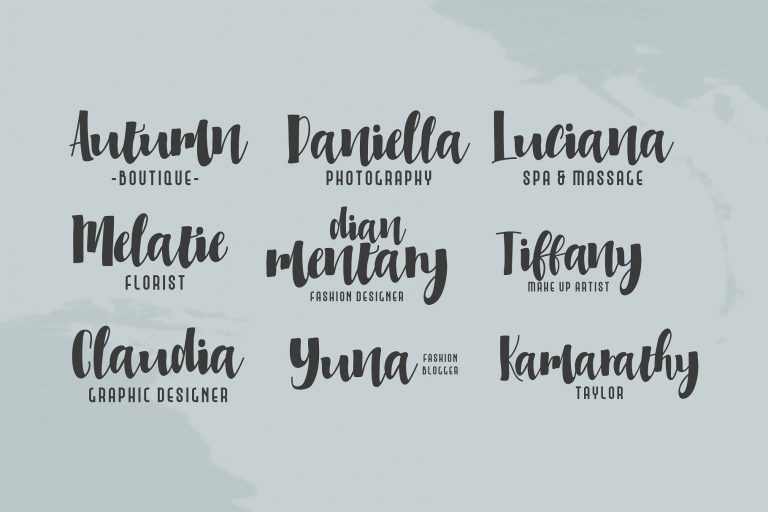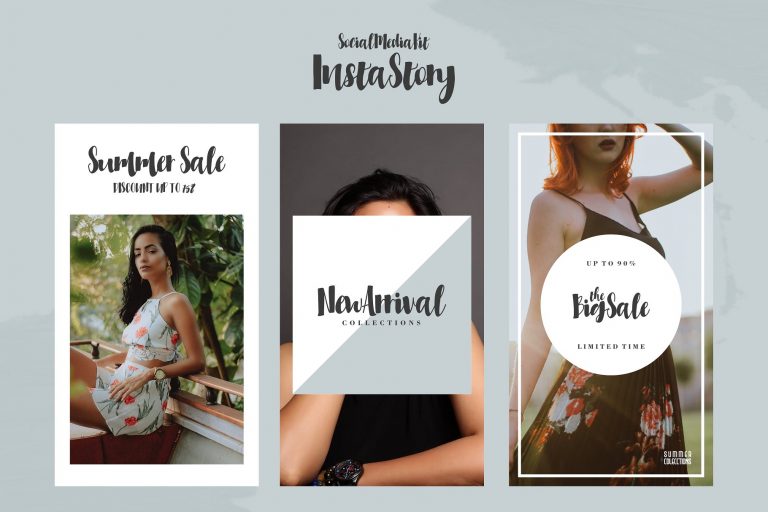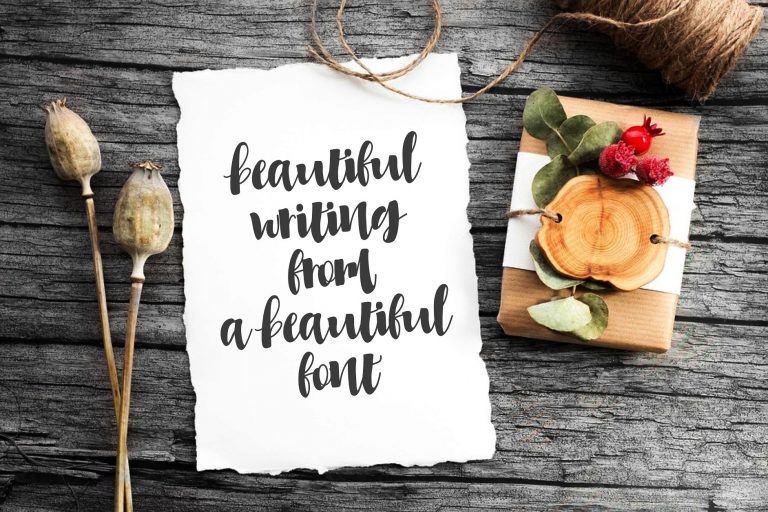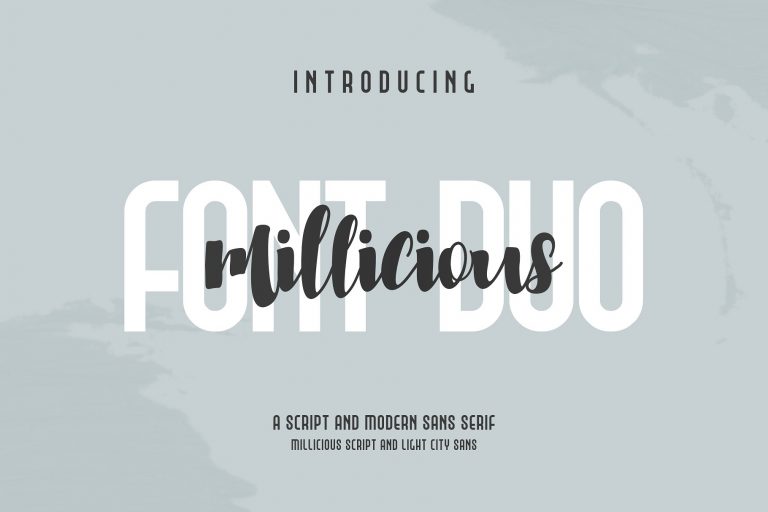
Millicious Brush Font
Hello!! A modern and elegant script font that has been crafted with gentle curves and sophisticated strokes. Feel free to play with all the patterns and shape! Introducing Millicious Font. Millicious Brush FontThis font contains beautiful script handwriting fonts, and one is a modern sans serif font. This font is available in OTF and TTF formats, which can be used on Windows OS, Linux, and Mac. You want to make a greeting card or a package design, or even a brand identity, craft design, any DIY project, book title, wedding font, pop vintage design, retro design or any purpose to make your art / design project look pretty and trendy.